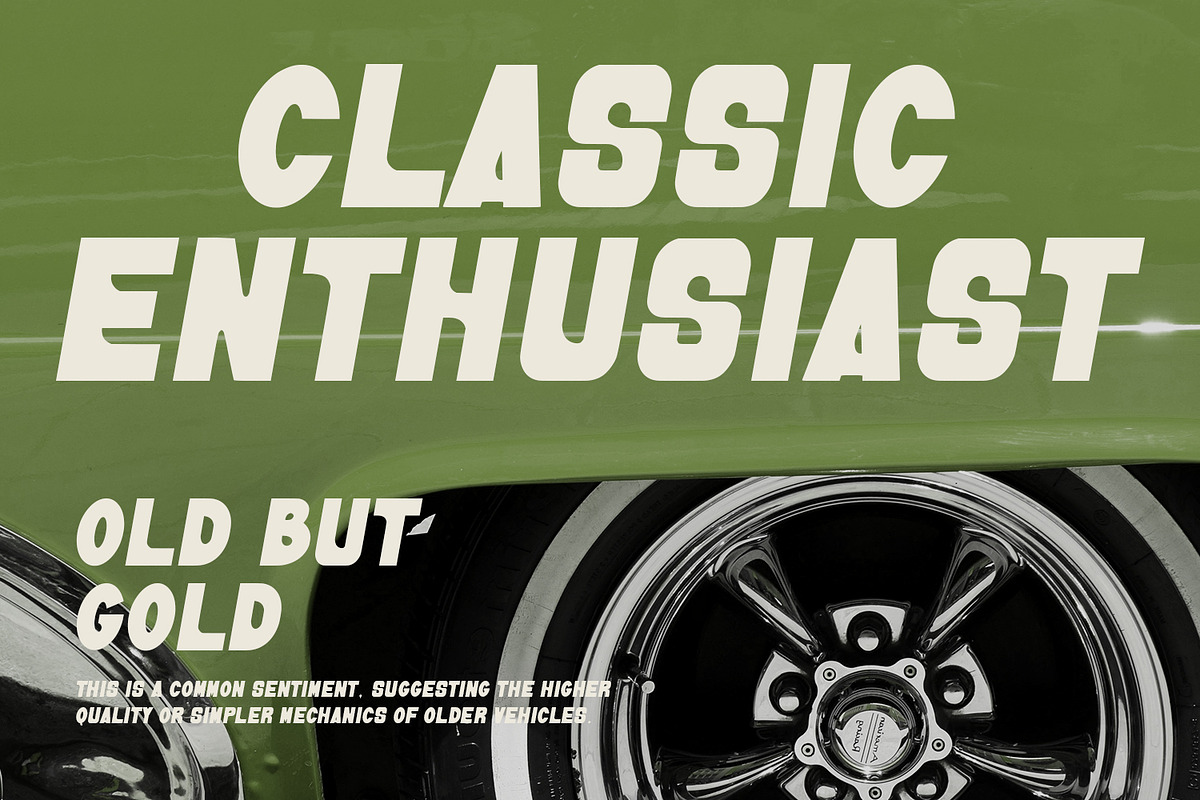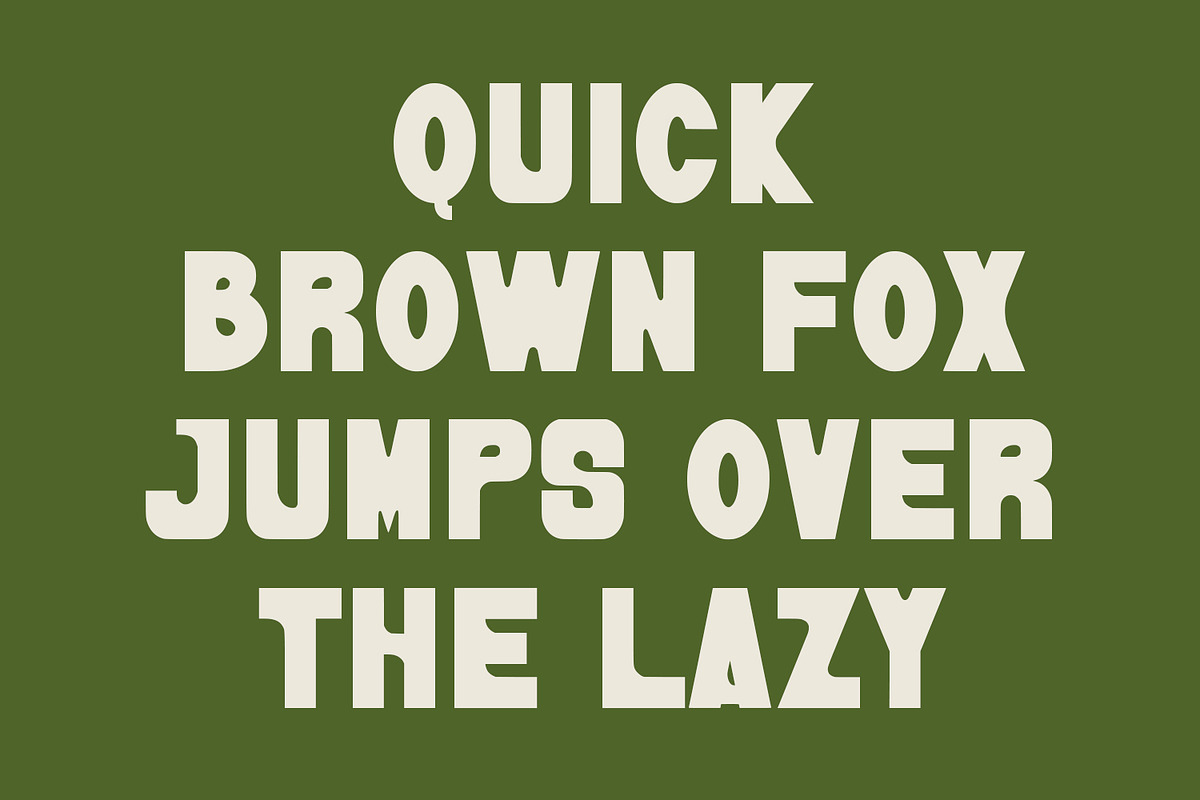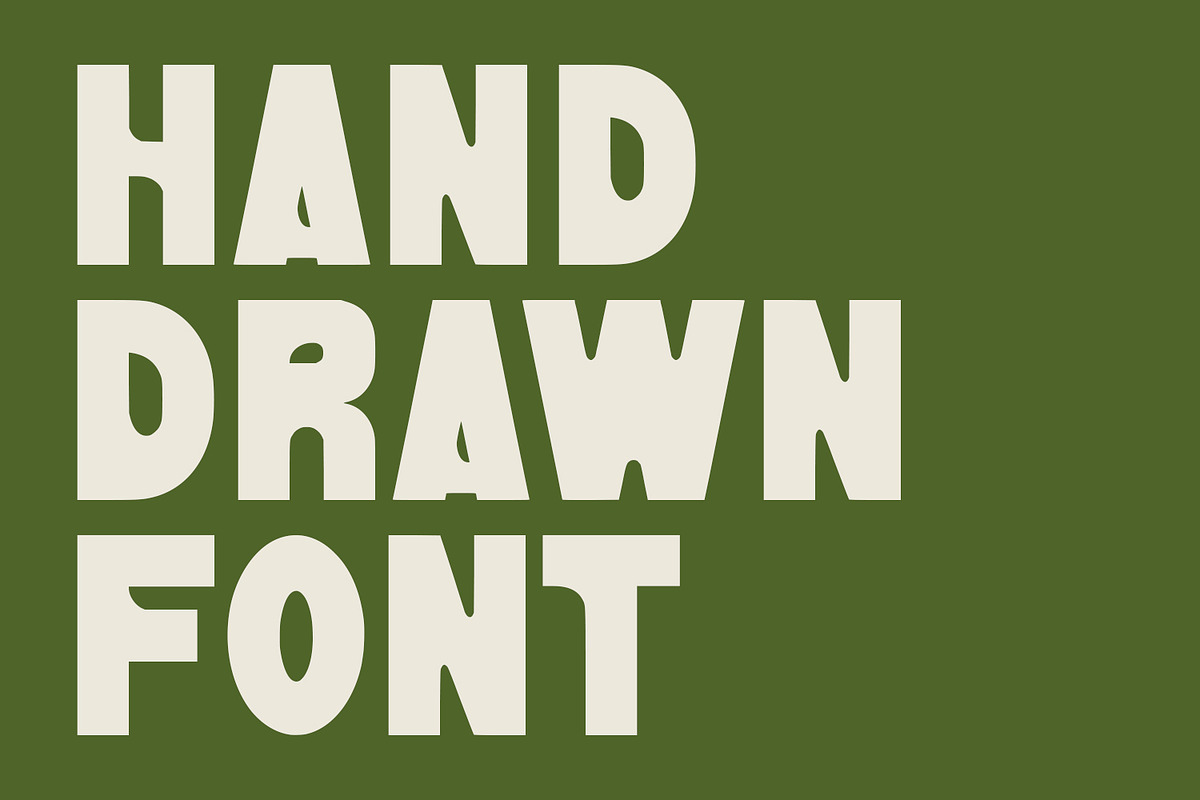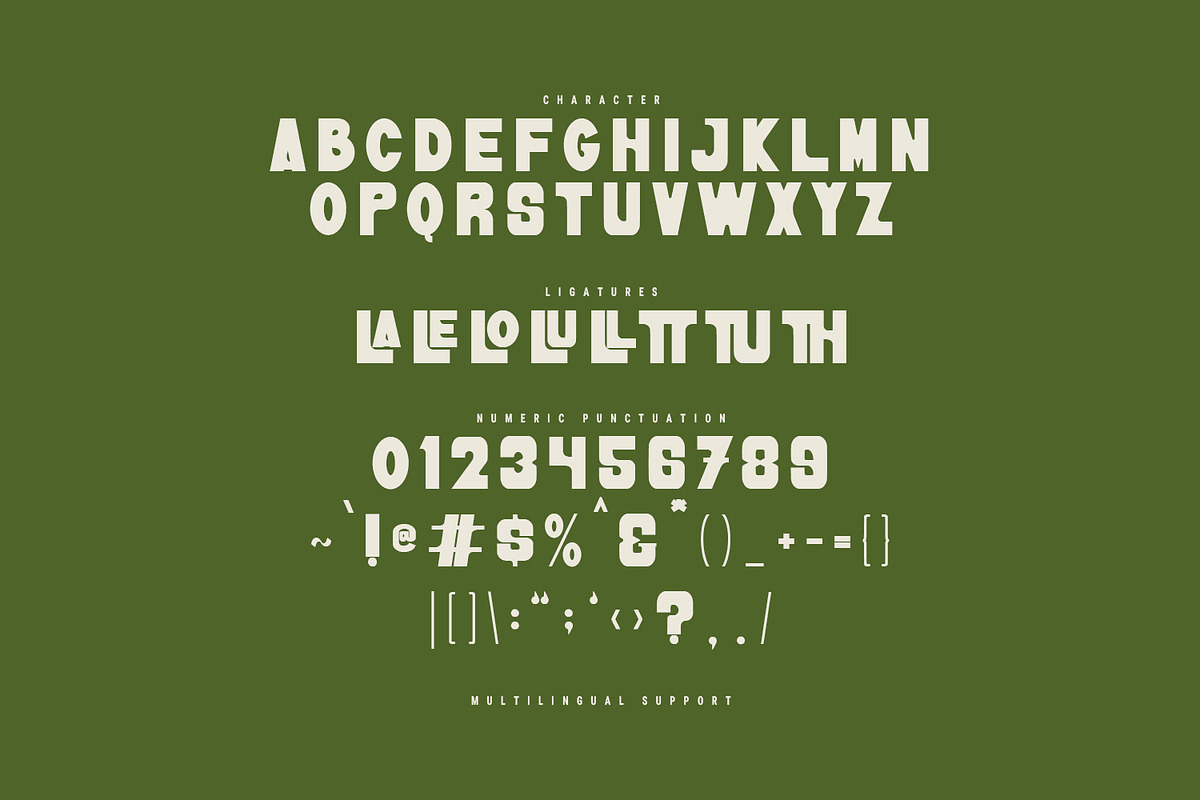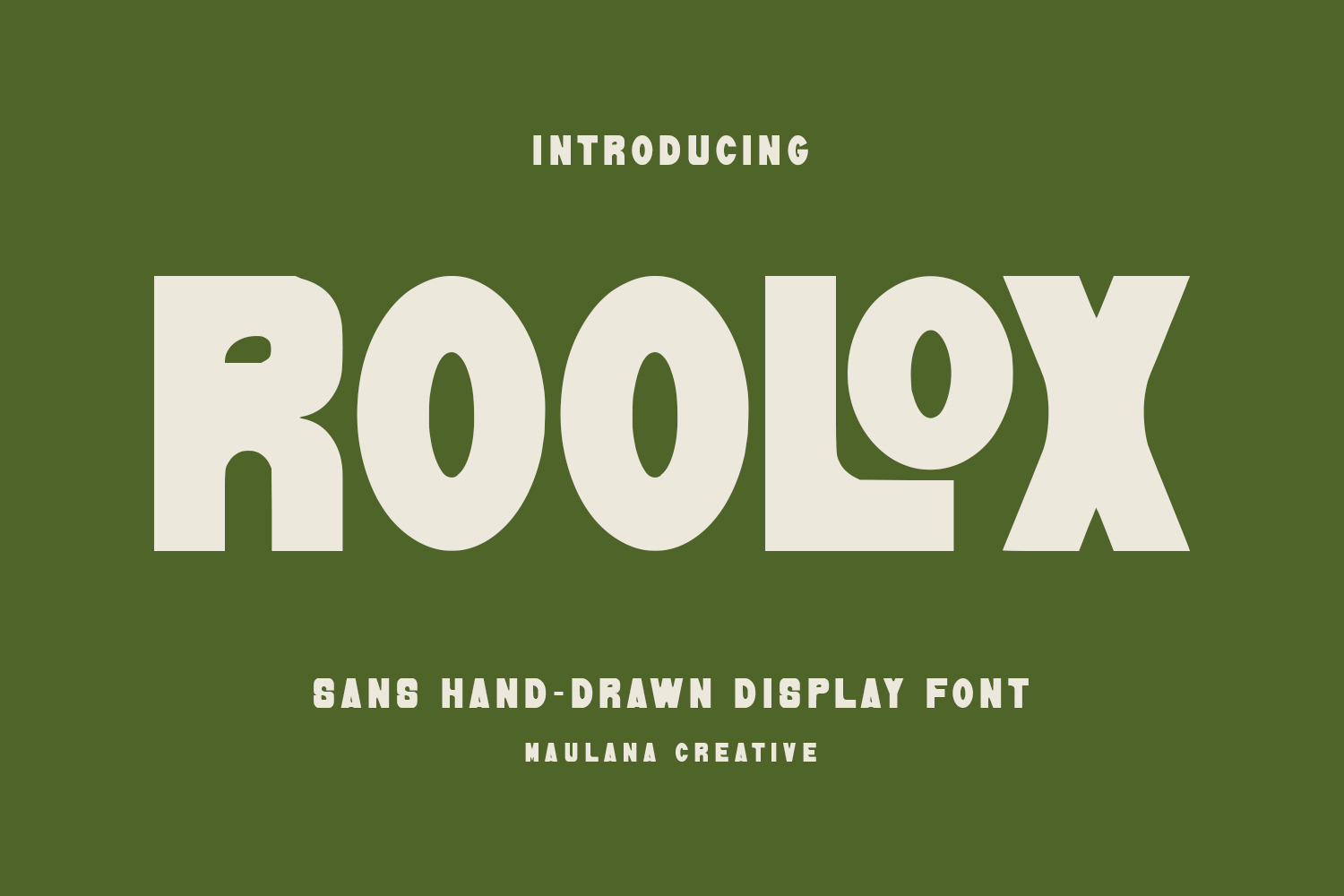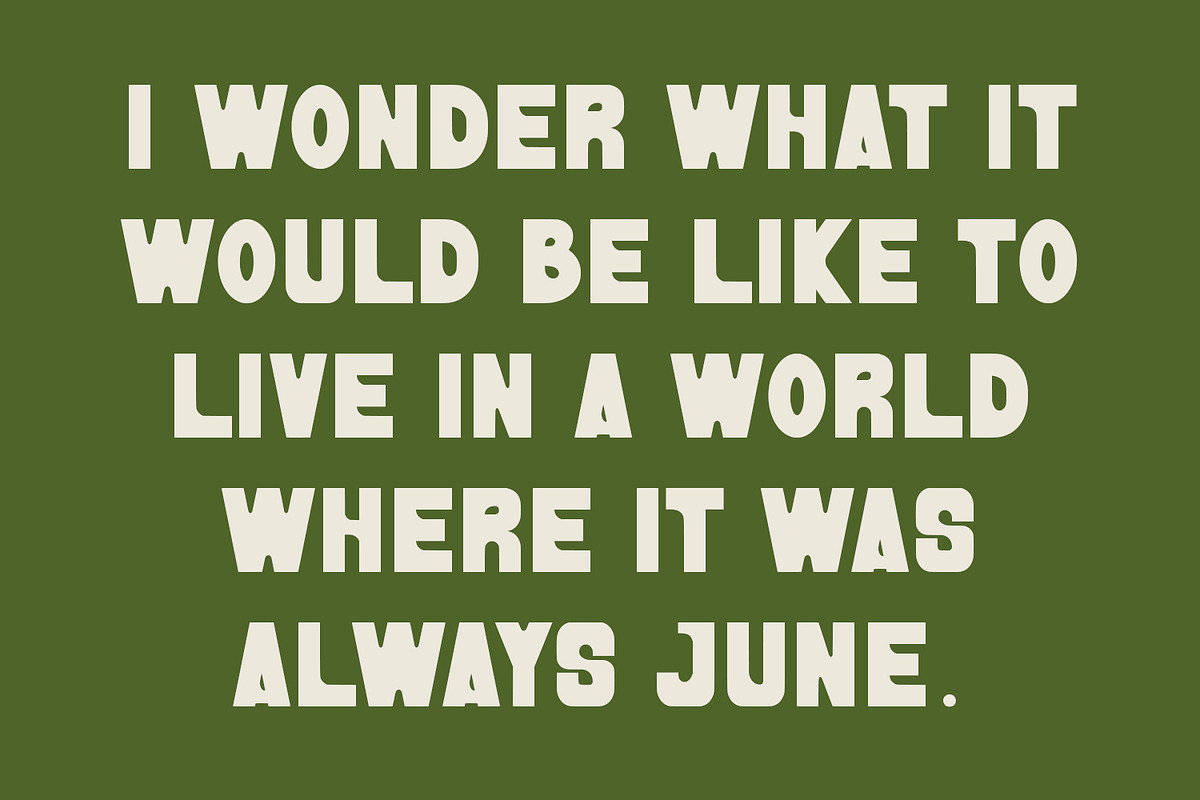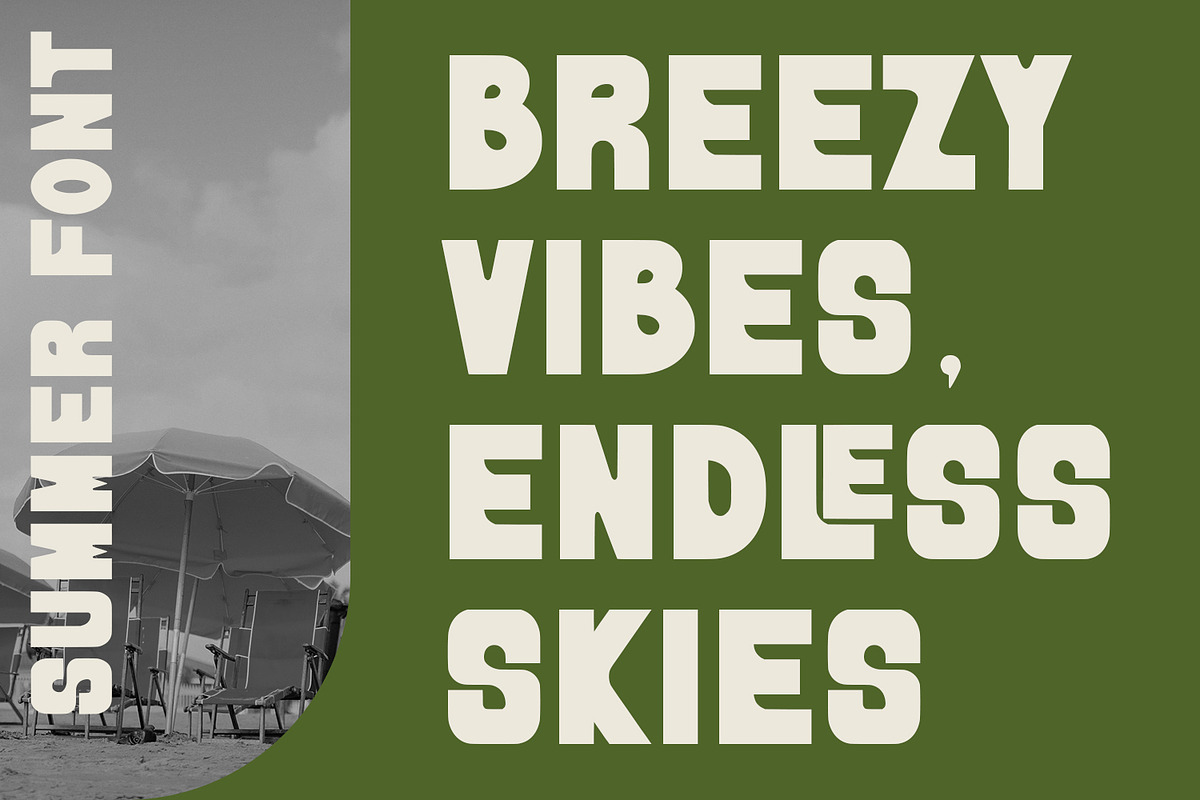
Roolox Sans Hand Drawn Display Font
Roolox sans hand drawn display font. Fun character with a bit of ligatures. To give you an extra creative work. This font is good for logo design, Social media, Movie Titles, Books Titles, a short text even a long text letter and good for your secondary text font with script or serif. Make a stunning work with Roolox font.